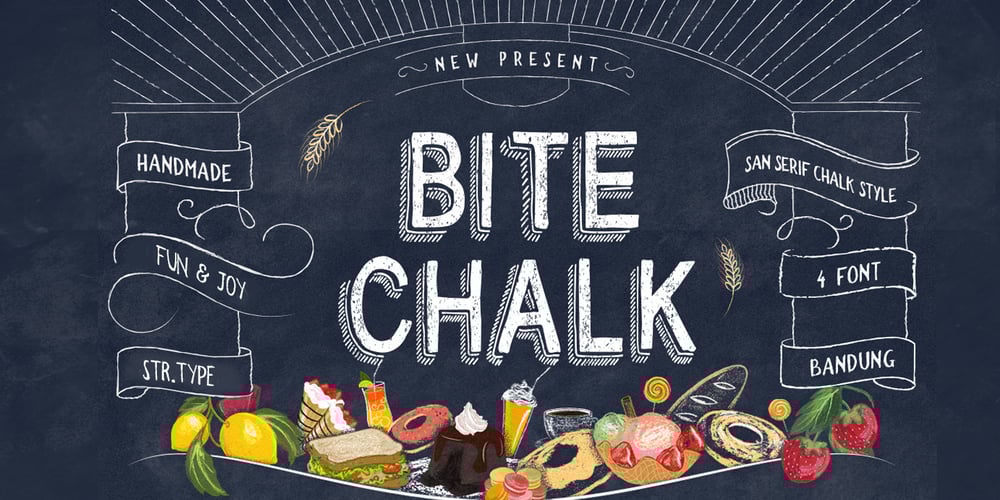
Bite Chalk Font Family was designed by panji nugroho and published by Storictype. Bite Chalk contains 4 styles and family package options. BiteChalk Still with a chalk concepts, This is good for projects like a menuboards it’s specially designed cafe or restaurant ,background photoboots wedding, t-shirt, posters, etc and a touch of vector pack theme dessert, that allows you to mix and match pairs of ornaments to fit your design .Above the description of this font, I hope you’re satisfied with what I have created.Thank You